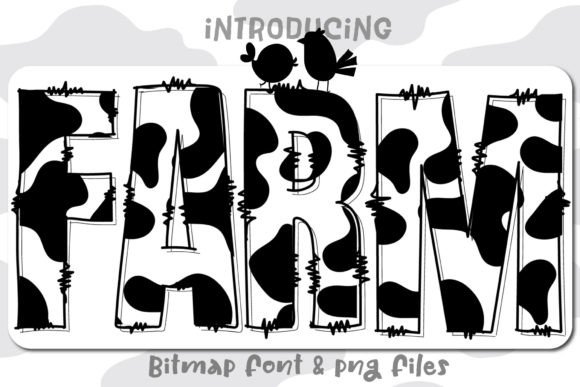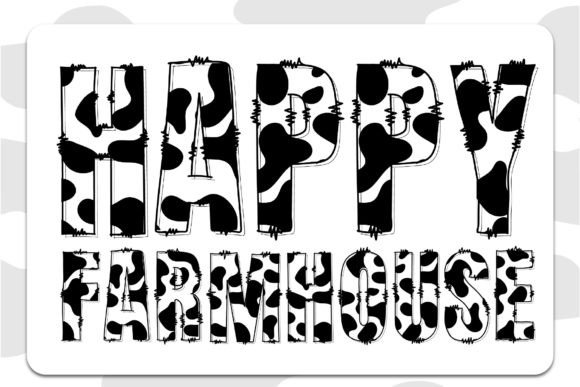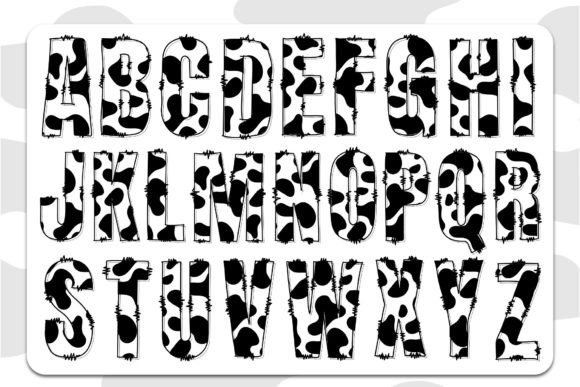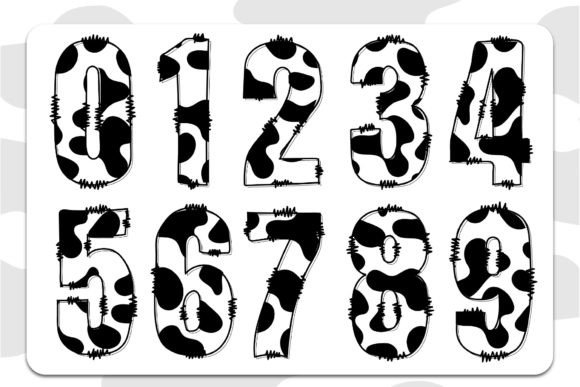
Welcome to the world of Farm Font, a typeface that will inspire your next great project. Farm is a friendly cow print color font. It embodies playfulness and is the perfect choice for pretty much anything that requires a jolly touch.
Farm Font’s playful nature makes it ideal for children’s books, branding for playful businesses (e.g., ice cream shops, toy stores), and eye-catching packaging designs. It also works well in short headlines or as a display font for posters and social media graphics. However, its highly decorative nature makes it unsuitable for body text or UI elements where readability is paramount. Long paragraphs set in Farm Font would be difficult to read.
Consider pairing Farm Font with a clean sans-serif like Lato or Open Sans for a balanced design. For a more whimsical feel, a script font with a similar friendly energy could also work well, but avoid pairing it with overly ornate fonts to maintain clarity.
The overall personality of Farm Font is undeniably cheerful and friendly, lending itself to brands that want to project approachability and fun. Its strong color integration is a key feature, adding an extra layer of visual interest to any project.